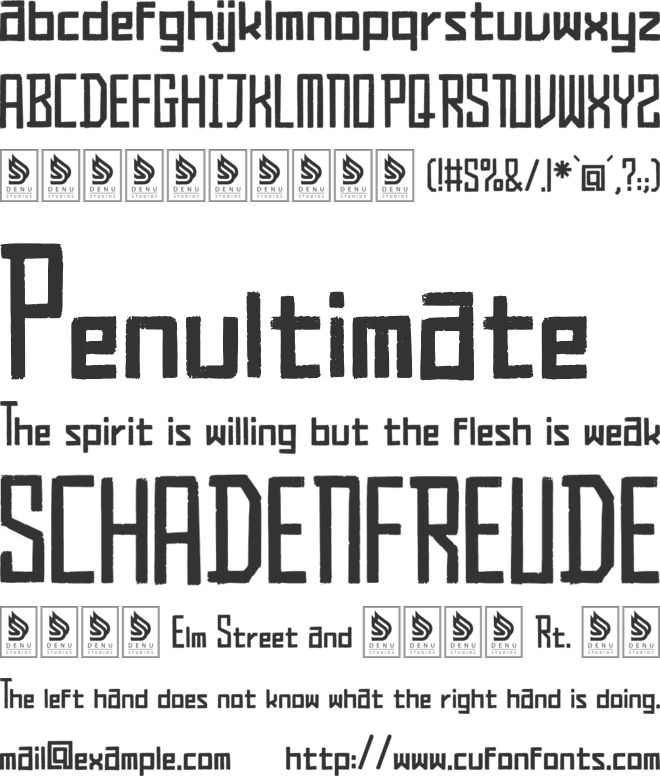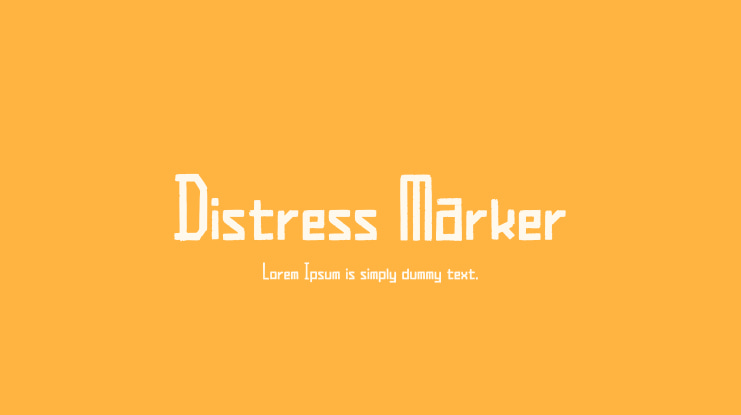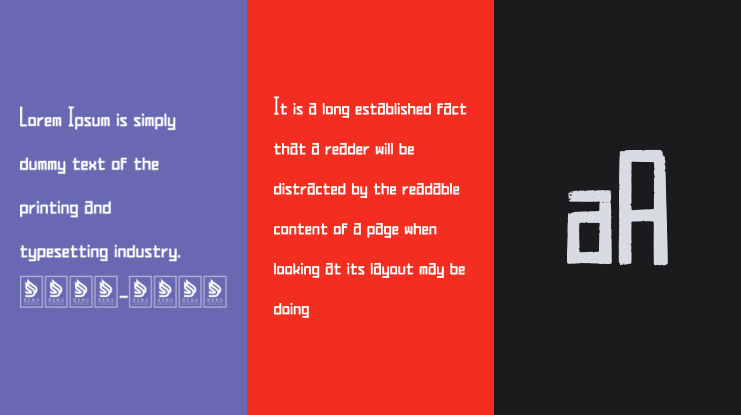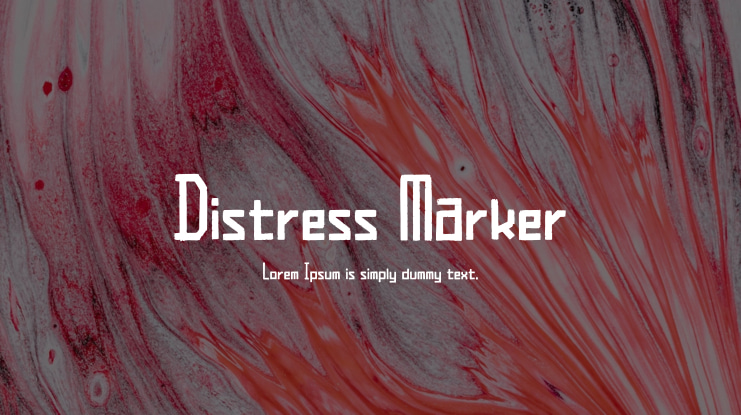
Distress Marker | Urban Typeface is suitable for any projects such as: logos, branding projects, homeware designs, product packaging, mugs, quotes, posters, shopping bags, t-shirts, book covers, name card, invitation cards, greeting cards, label, photography, watermark, special events, and all your other lovely projects that need a Urban Typeface taste.